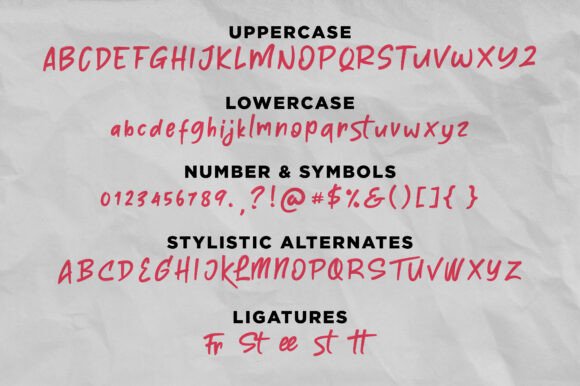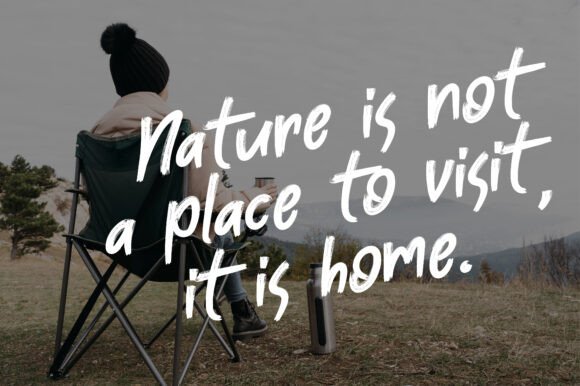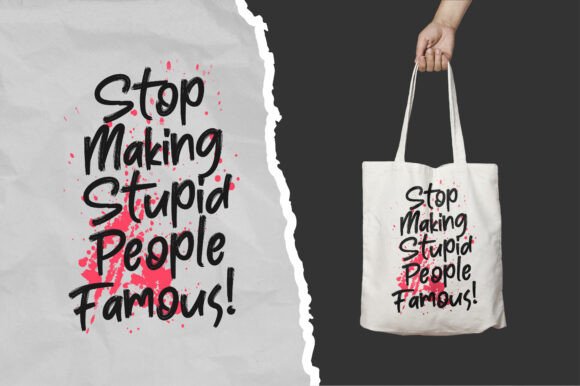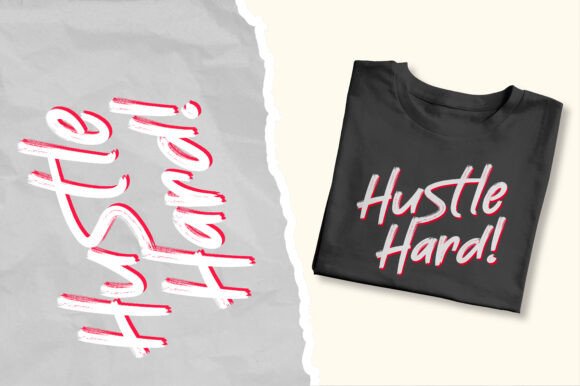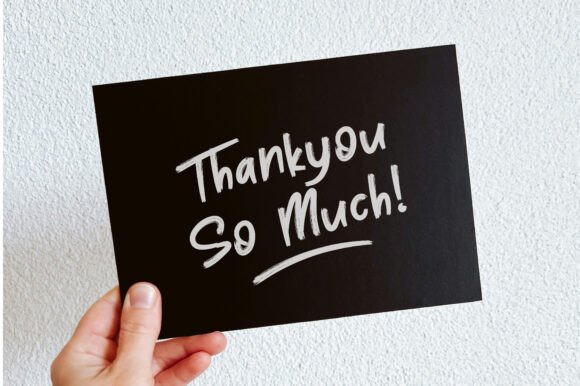
Creating Head-Turning Headlines
As designers, we’ve all been there – staring at a blank canvas, trying to come up with the perfect phrase to grab our audience’s attention. The words swirl around in our minds, until finally, the perfect headline emerges. And that’s when the magic happens – the moment we know we’ve created something special.
Brushead Font is the perfect tool to help bring your ideas to life. This hand-drawn brush font is designed to be bold, attention-grabbing, and perfect for logos, branding, and print projects. With its rough, textured look, Brushead Font is sure to stand out from the crowd and make your message impossible to ignore.
For designers, Brushead Font is a valuable asset, offering a unique and versatile way to add some personality to your work. With its uppercase multilingual letters, punctuation, and numbers, plus alternate styles for many letters toggled via Caps Lock, the possibilities are endless.
Key Features of Brushead Font
- Font Family: Brushead comes in two font styles – Regular and Bold, allowing for a range of design possibilities.
- Character Count: The font contains a wide range of characters, including uppercase and lowercase letters, numbers, and punctuation marks, making it suitable for various design applications.
- Unique Characteristics: Brushead Font features a unique, bold, and playful design aesthetic, making it perfect for creating eye-catching and memorable designs.
Brushead Font Review
I recently had the chance to work with the Brushead font, and I must say it’s been an interesting experience. Here’s my honest take on this font.
- Unique character: Brushead has a distinct, quirky feel to it that can add a lot of personality to a design.
- Great for bold statements: This font is perfect for headings and titles where you want to make a strong impression.
- Good legibility: Despite its unconventional design, Brushead is relatively easy to read, especially at larger sizes.
- Limited versatility: Brushead is best suited for bold, eye-catching applications. It may not be the best choice for body text or situations where readability is paramount.
- May not be suitable for small sizes: While Brushead is legible at larger sizes, it can become difficult to read at smaller sizes due to its unconventional design.
- Not ideal for formal or professional designs: Brushead’s quirky feel may not be suitable for formal or professional designs where a more conservative approach is preferred.
Brushead is a font that’s best suited for bold, eye-catching applications where you want to make a statement. While it has its limitations, it can be a great addition to your design arsenal when used thoughtfully.
Brushead Font is a bold and playful font, making it perfect for:
– Marketing materials
For the best results, use Brushead Font in bold or italic styles to add emphasis and visual interest to your designs.